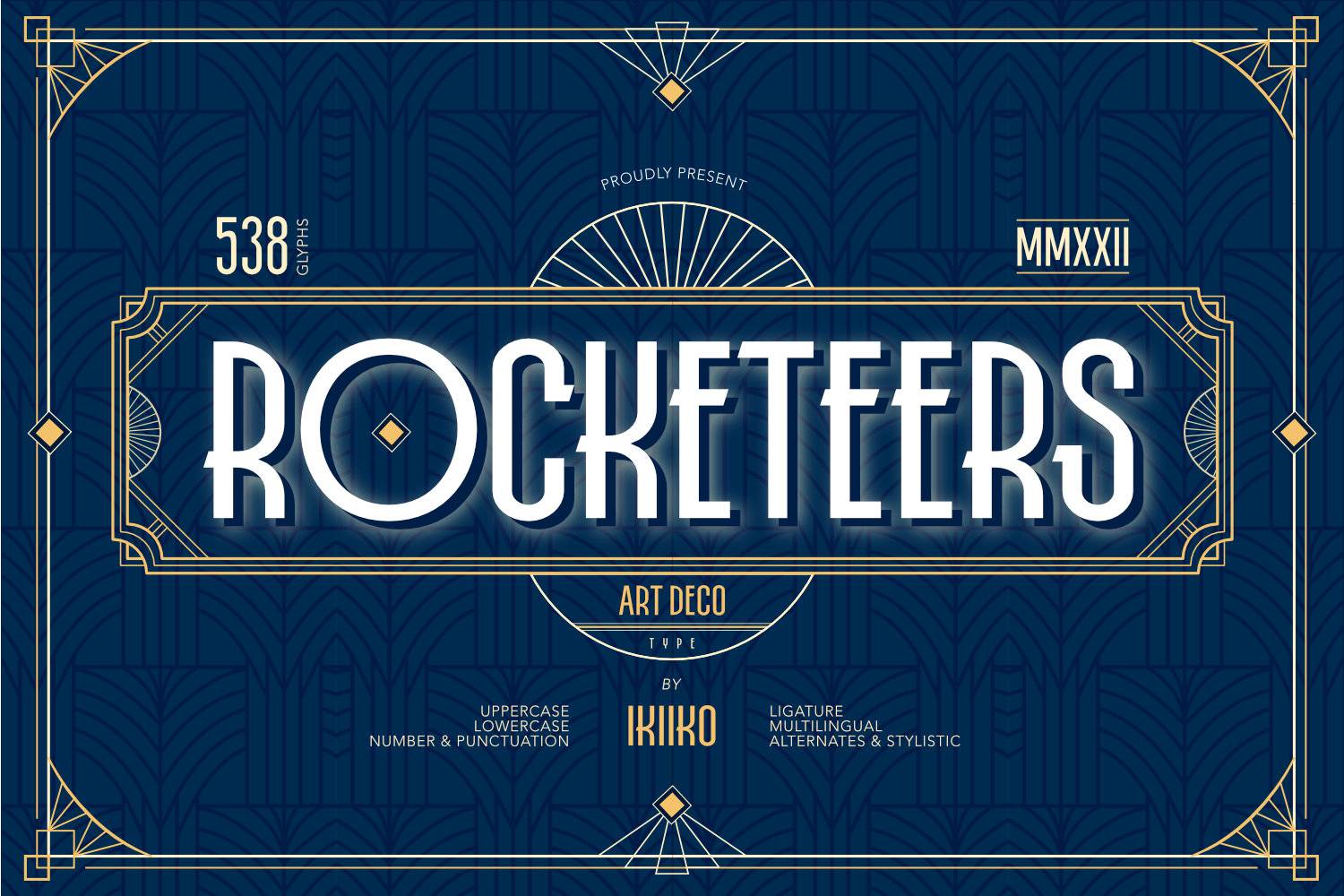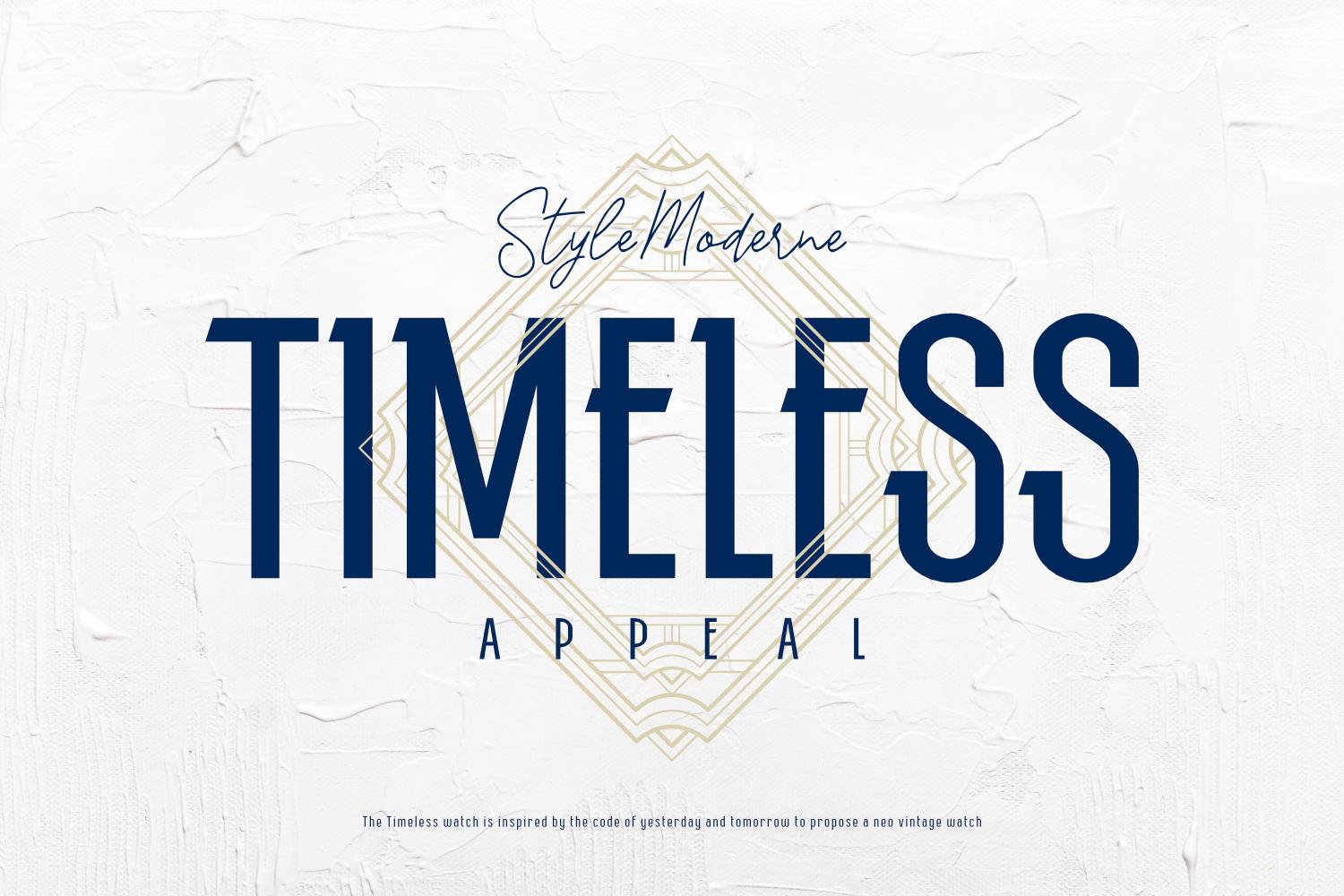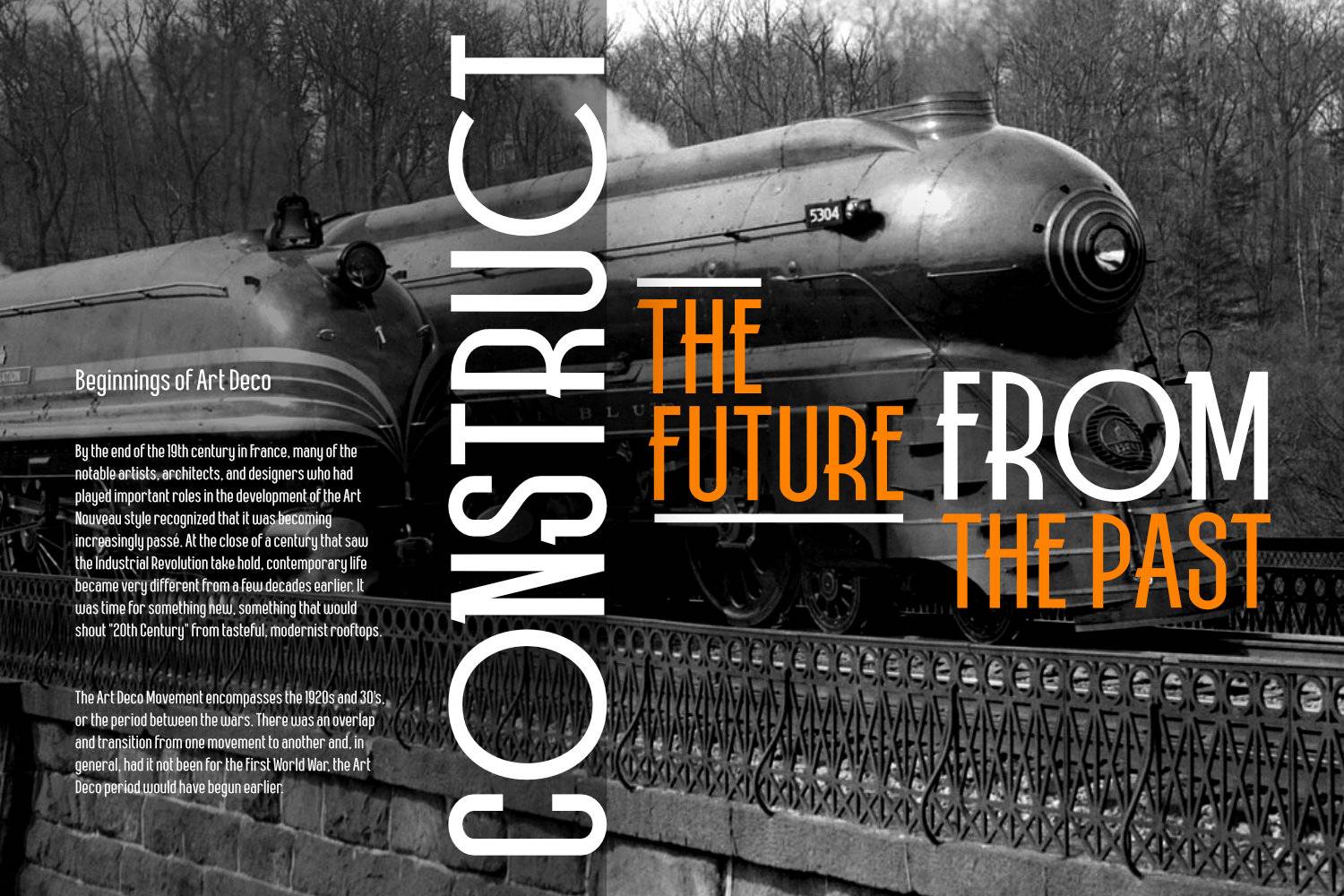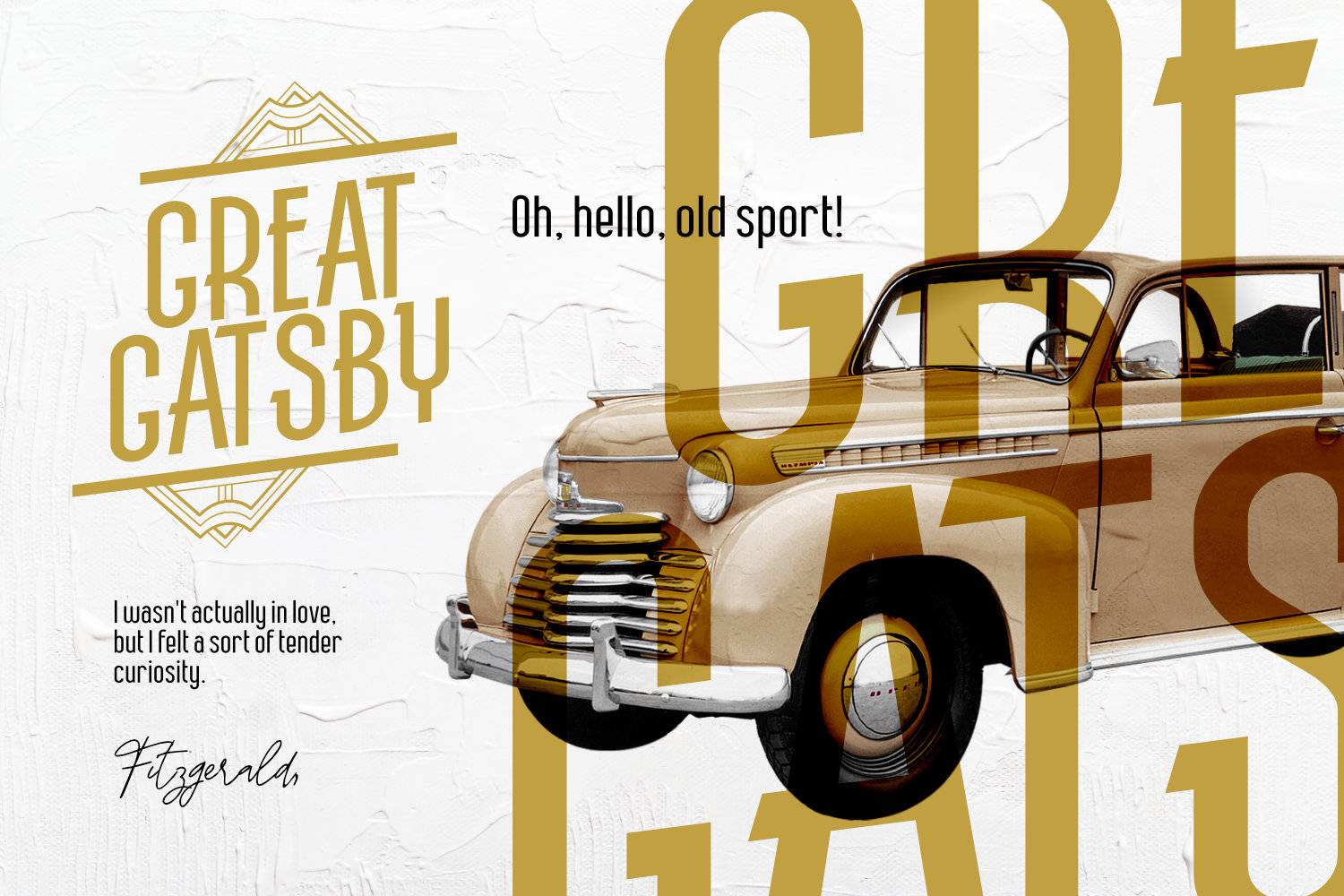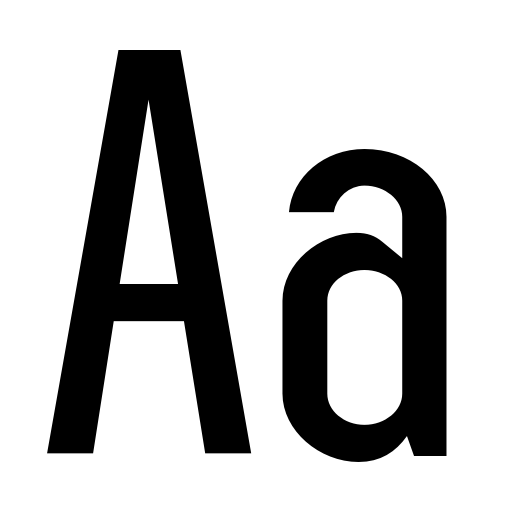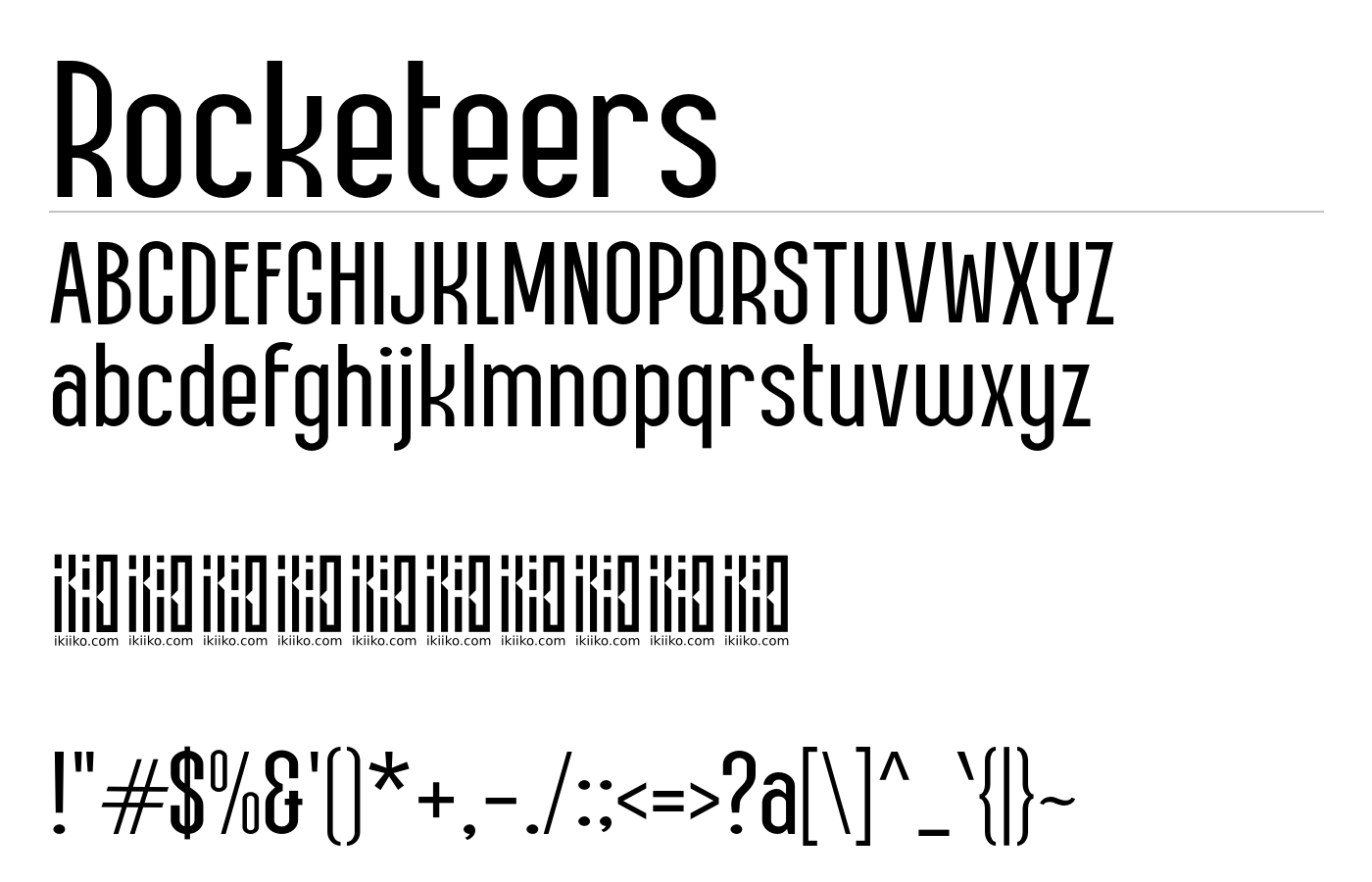
Rocketeers is a narrow, sans serif font with a modern and geometric feel, characterized by its tall x-height and consistent stroke width that offers low contrast. Its clean, single-story letterforms and condensed spacing make it highly readable and perfect for sleek, contemporary designs. This font works well for headlines, branding, and editorial uses where a stylish, urban, and futuristic vibe is desired.
Rocketeers Font
| Designer | Wahyu Eka Prasetya, Andhika Pratama |